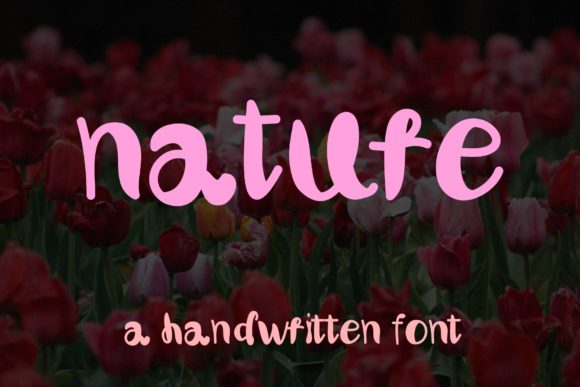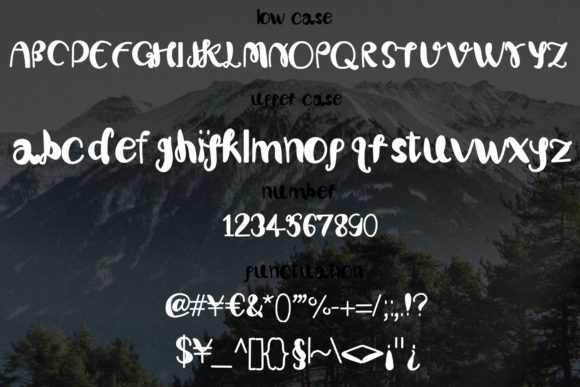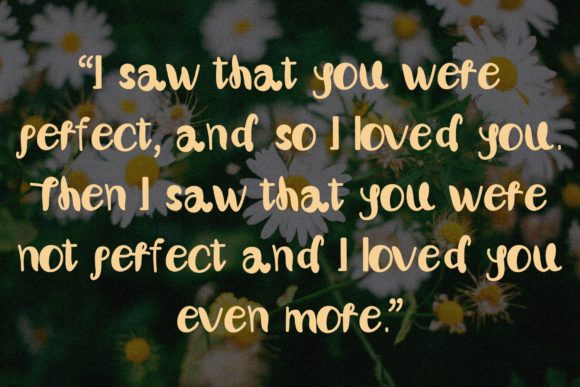
About Nature Font
“Nature” is an exquisite font that beautifully combines the charm of a brush pen and the subtlety of a pencil, resulting in an endearing and authentic style. With its versatility and unique appeal, “Nature” can elevate various design projects to the highest level. Here are some creative ideas on how to make the most of “Nature” in your designs:
1. Branding: Use “Nature” to create a distinctive brand identity for businesses, adding a touch of authenticity and warmth to logos, business cards, and packaging.
2. Headings and Titles: Make headings and titles stand out with the unique and endearing style of “Nature,” capturing the attention of readers.
3. Wedding Designs: Create beautiful and romantic wedding designs, such as invitations, save-the-date cards, and thank-you notes, to set the tone for a memorable event.
4. Invitations and Greeting Cards: Design personalized and heartfelt invitations or greeting cards for various occasions, such as birthdays, anniversaries, and celebrations.
5. Signatures: Add a touch of personalization and elegance to your digital signatures or handwritten messages with “Nature.”
6. Labels and Tags: Use “Nature” to design charming and eye-catching labels and tags for products or gifts, enhancing their visual appeal.
7. Social Media Graphics: Elevate your social media posts with the authentic and endearing style of “Nature,” making your content more engaging and relatable.
8. Quotes and Typography Art: Showcase inspiring quotes and create stunning typography art with the unique strokes of “Nature.”
9. Packaging Design: Apply “Nature” to product packaging to evoke a sense of authenticity and handcrafted charm, appealing to customers.
10. Magazine Layouts: Enhance the visual appeal of magazine layouts with the charming and authentic touch of “Nature.”
11. Craft Projects: Incorporate “Nature” into various craft projects, adding a handmade and heartfelt feel to your creations.
12. T-shirt Designs: Use “Nature” to create unique and appealing designs for t-shirts and apparel, adding a touch of authenticity to fashion items.
13. Book Covers: Make book covers stand out with the endearing and authentic style of “Nature,” captivating readers at first glance.
14. Website Banners: Add warmth and authenticity to your website banners and headers using the distinctive strokes of “Nature.”
15. Packaging Design: Apply “Nature” to product packaging, creating a delightful and authentic experience for customers.
The stunning pairing of a brush pen and pencil in “Nature” makes it a versatile and appealing font for a wide range of design projects. Whether for personal or professional use, this font brings an endearing and authentic touch that can elevate your creations to new heights!